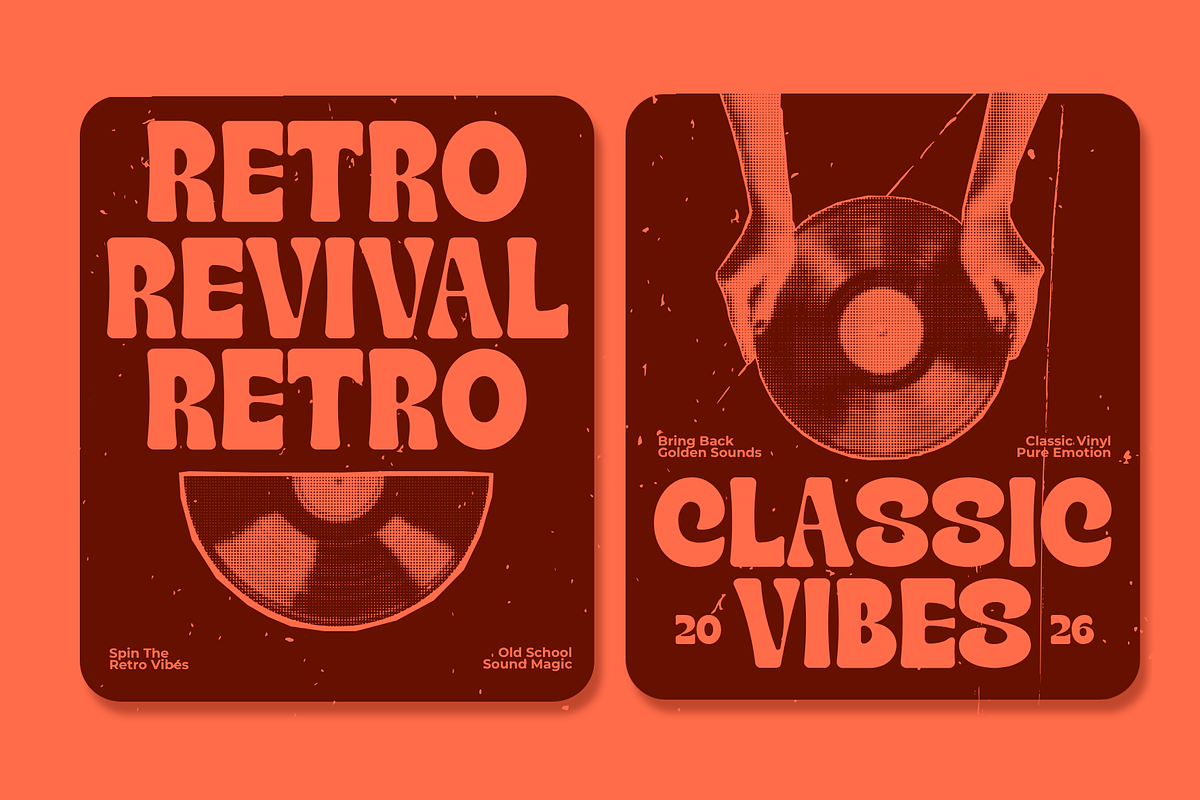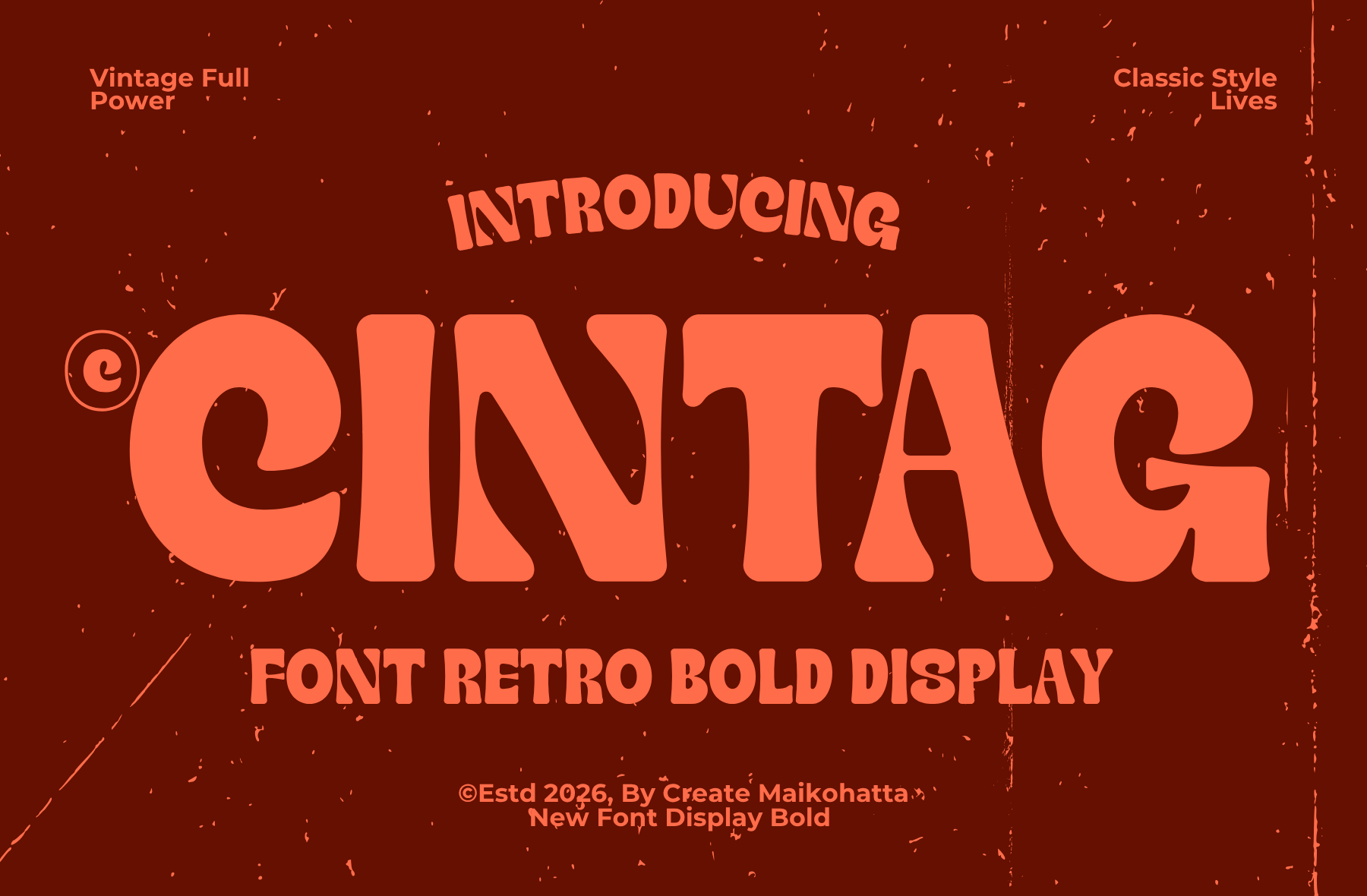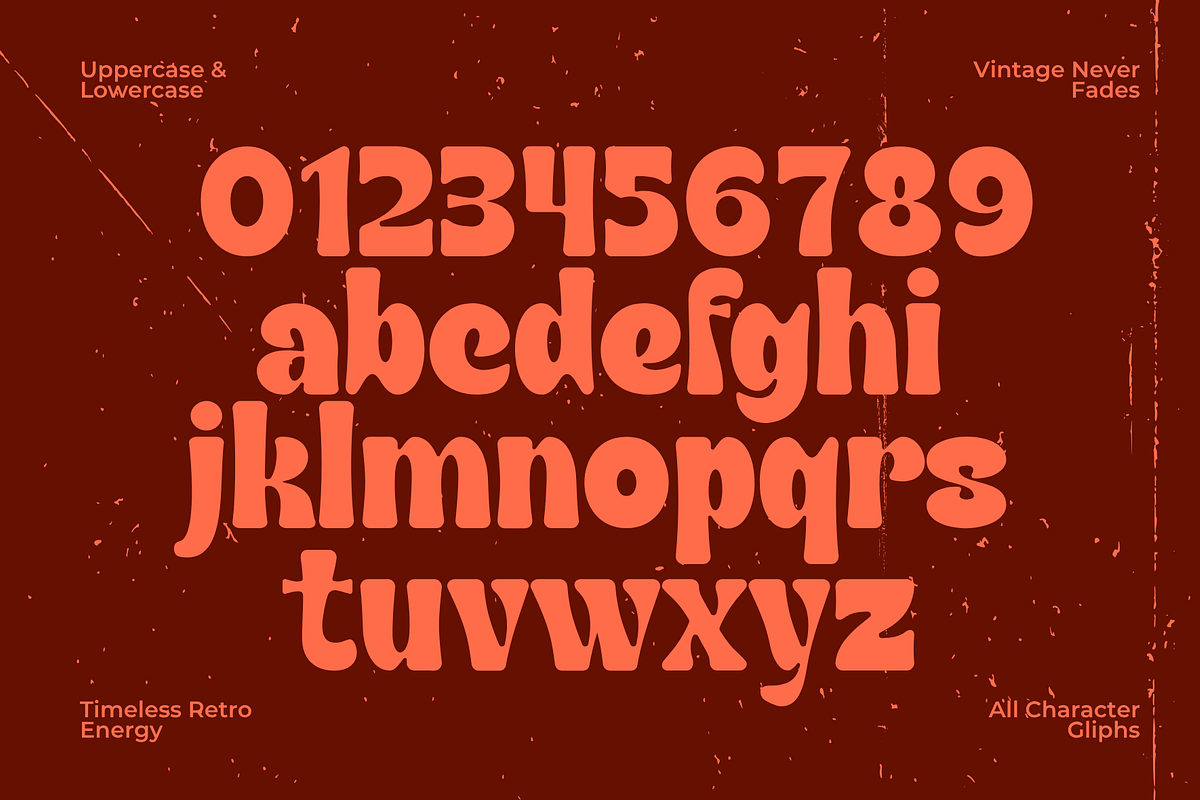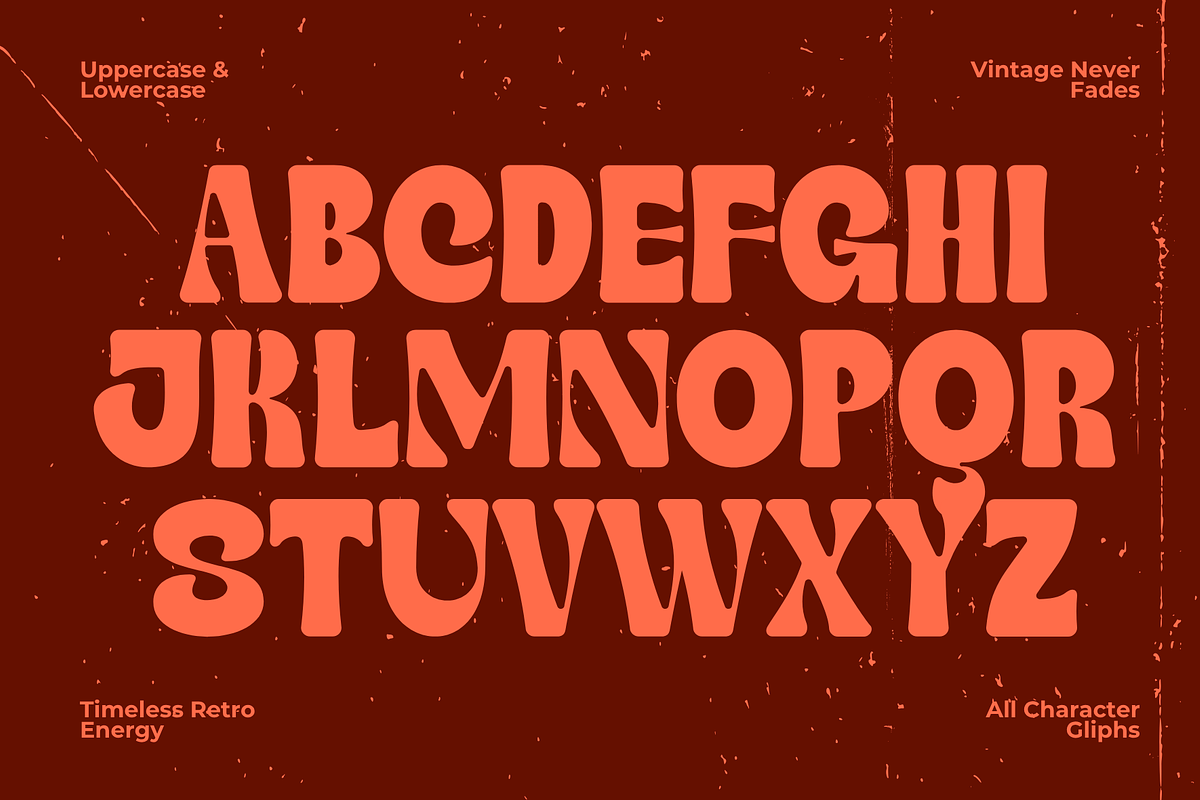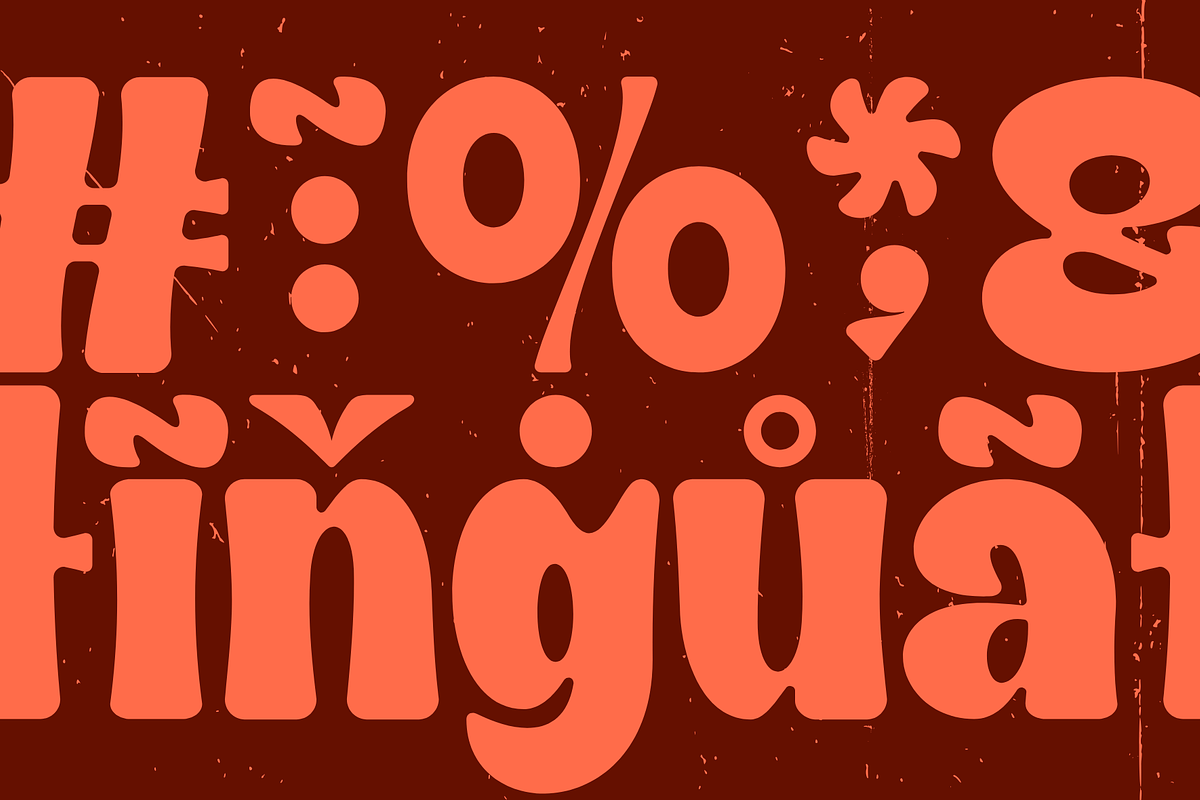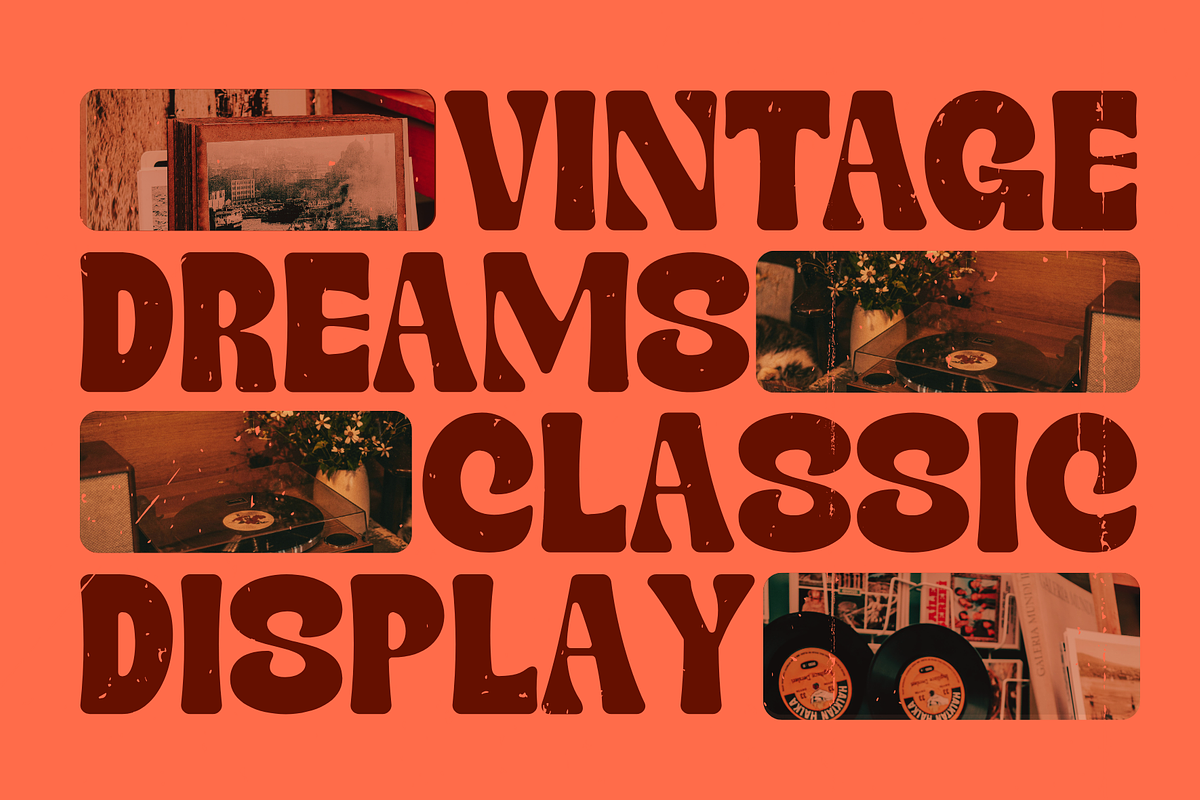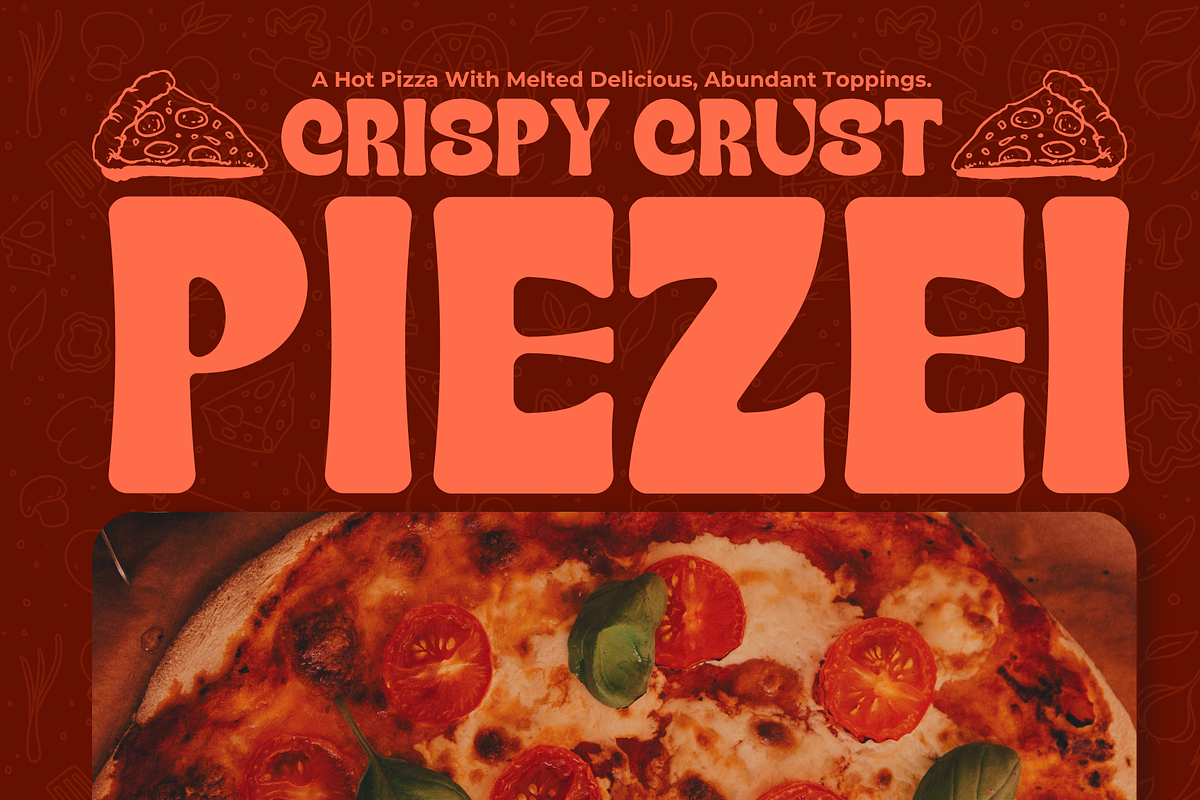
Cintag – Retro Bold Display Font
Cintag Retro Bold Display Font, a chunky vintage-inspired typeface that brings the nostalgic charm of the '70s and classic retro design into your creative projects. Featuring bold letterforms, smooth curves, and a playful personality, Cintag is designed to create eye-catching headlines and memorable branding with effortless vintage appeal.
Its unique character makes it ideal for logos, posters, packaging, labels, café branding, merchandise, album covers, social media graphics, editorial layouts, and any project that needs a bold retro statement. Whether you're designing for a nostalgic aesthetic or adding a fun vintage touch to modern visuals, Cintag delivers style, warmth, and personality.
Crafted with readability and versatility in mind, this font works beautifully in both digital and print applications, making it a valuable addition to every designer's font collection.